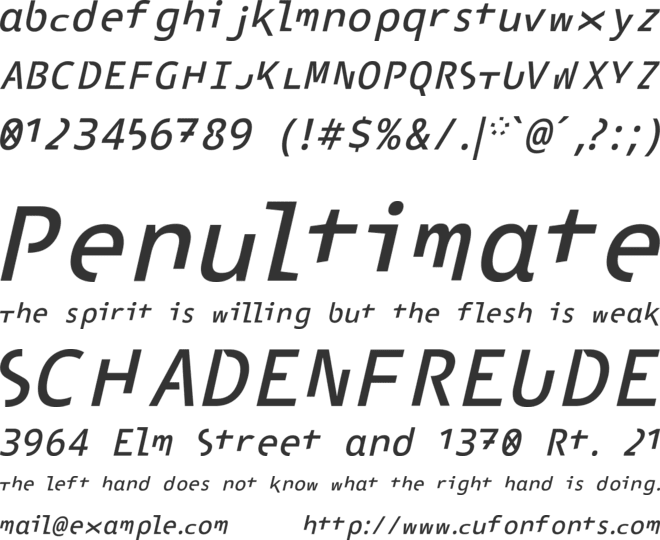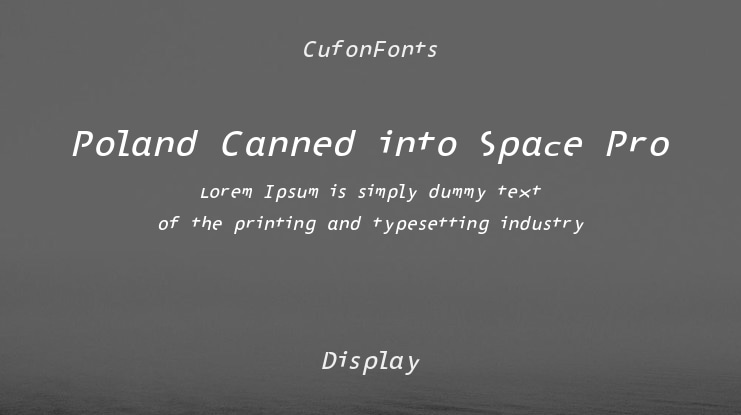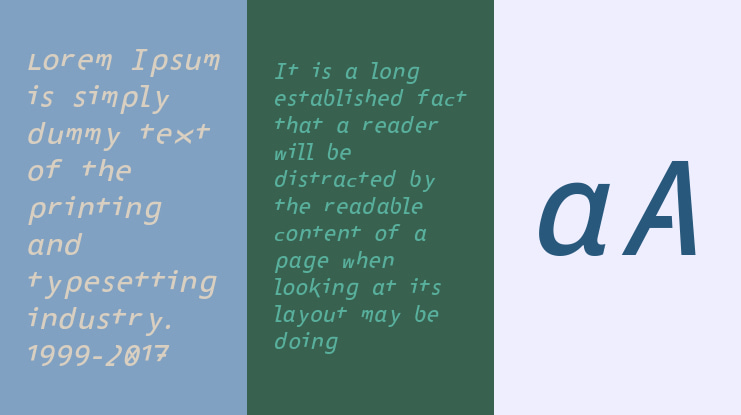
Poland Canned into Space Pro Font
This is a refreshment of Poland Canned into Space font. Based on Noto Sans Mono Medium font, it gives you a (more) refined sci-fi treatment. It has foreign language support and new glyphs not on the original (due to Fonty's limitations.).